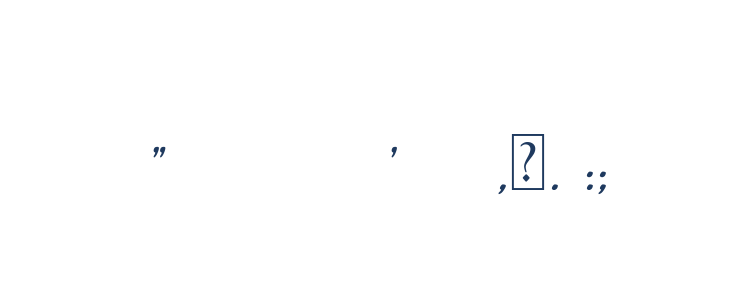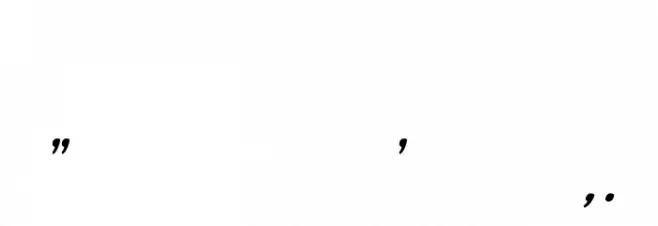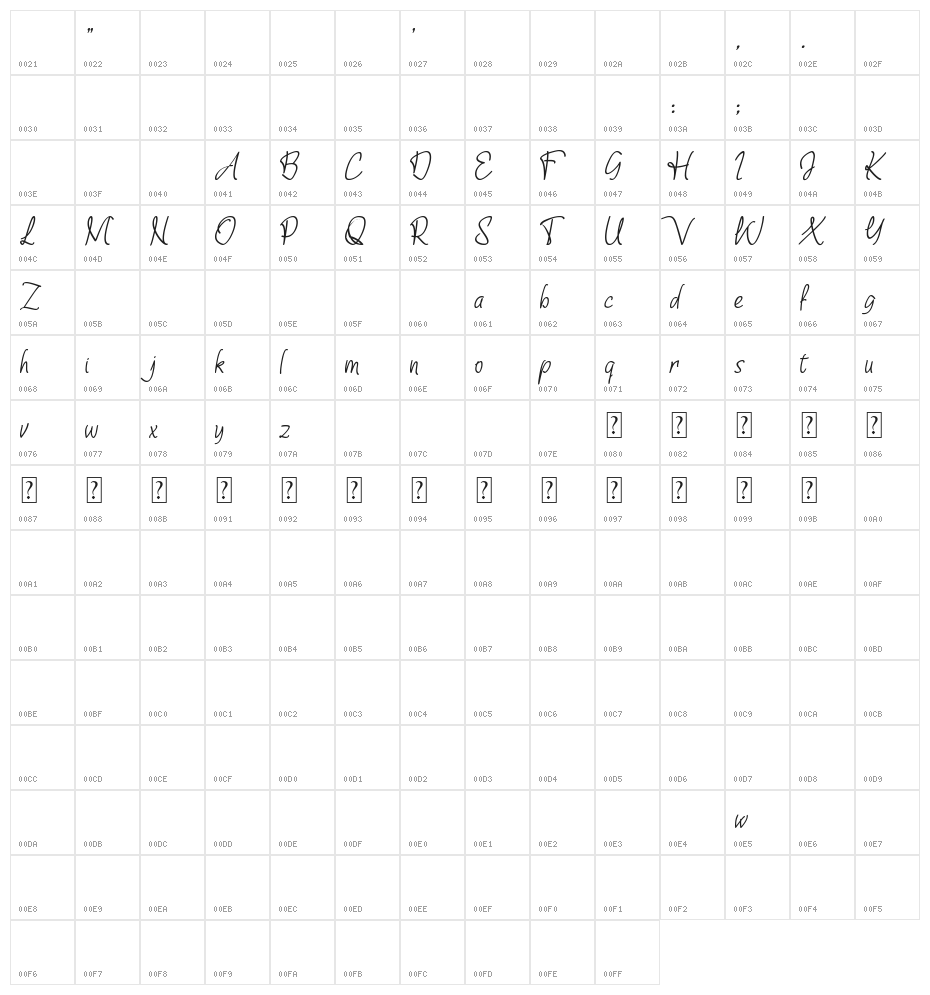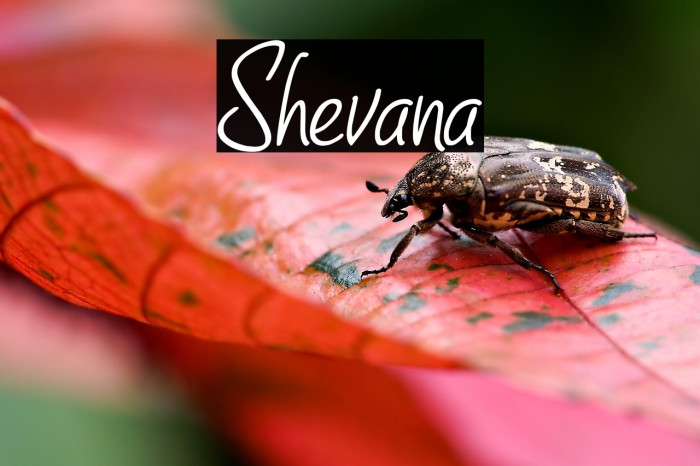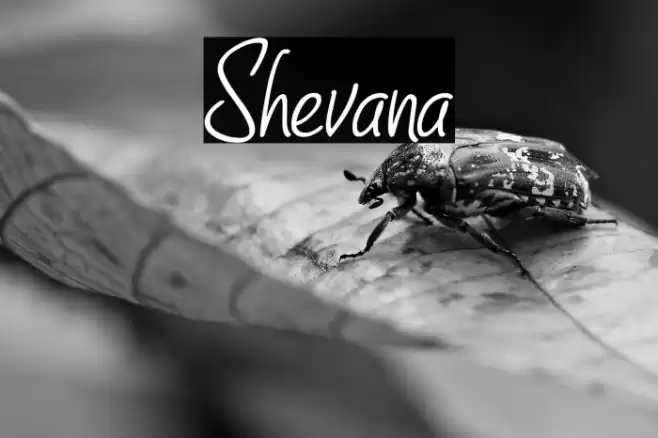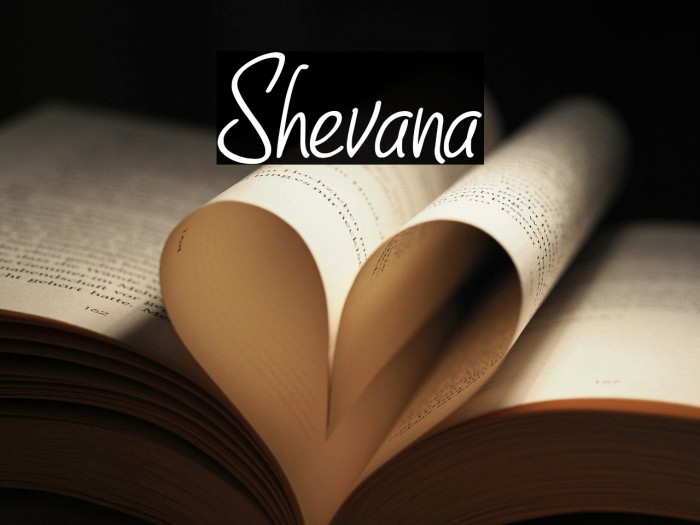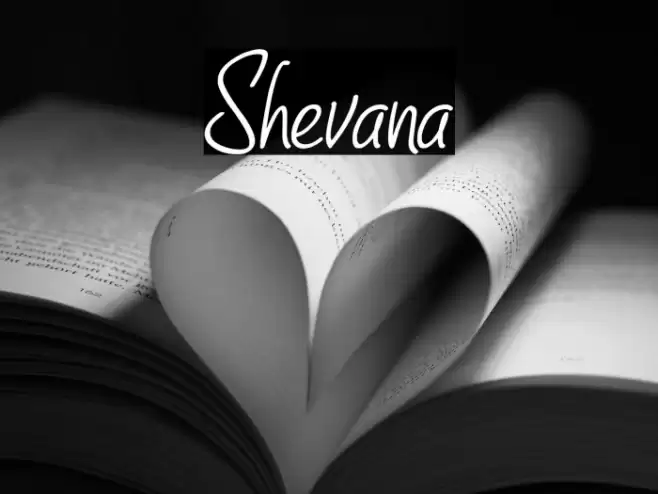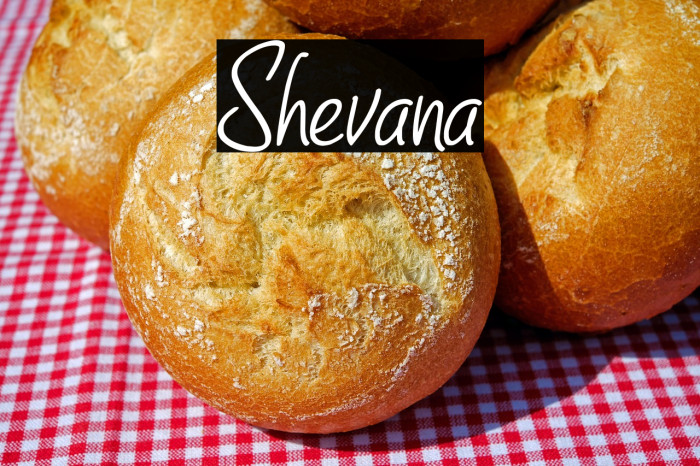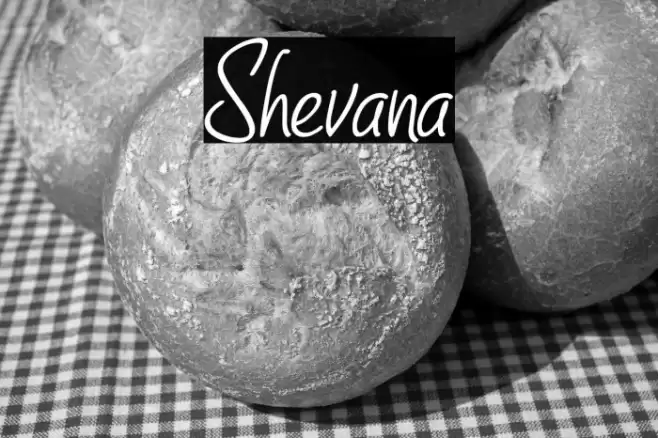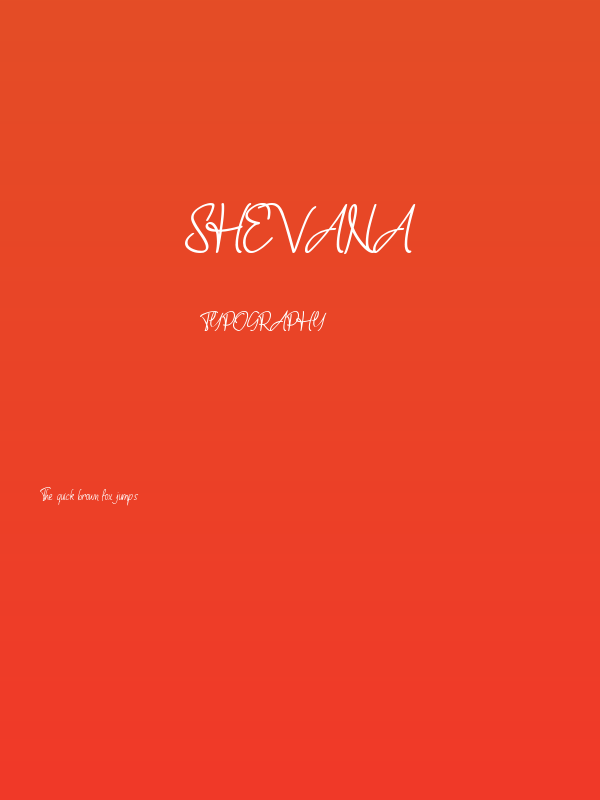
Shevana Font
Shevana Description
This font features a flowing, cursive style with elegant, sweeping strokes that give it a handwritten appearance. The uppercase letters are characterized by their dramatic loops and flourishes, while the lowercase letters maintain a more subdued yet still expressive form. The overall design is both artistic and legible, making it suitable for creative projects. The characters are slightly slanted, adding to the dynamic feel of the font. The spacing between characters is moderate, ensuring readability without sacrificing the decorative nature of the script. This font exudes a sense of sophistication and creativity, ideal for projects that require a personal touch.